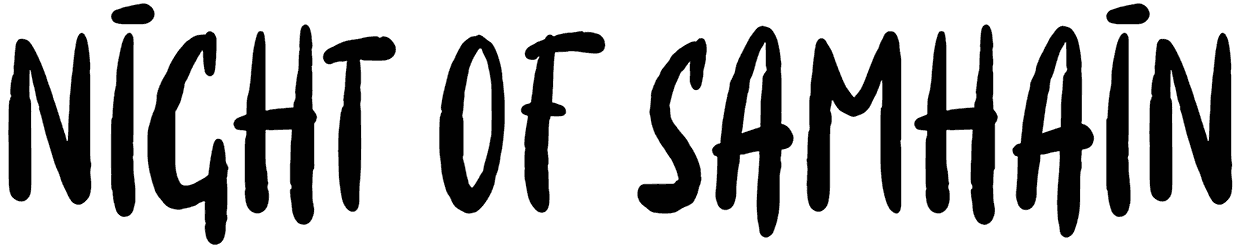
Night Of Samhain Font
Designed byMasa Aska Sanurumi
Night Of Samhain is one of the simple-looking script fonts that all artists love. This handwritten font has a bold but fresh look that is sure to bring a smile to anyone’s face, and at the same time can create a gentle sense of the mysterious and scary atmosphere of Halloween.
So if your design needs a sense of intimacy, this font can turn your poster, book, or animation into a special work of art.